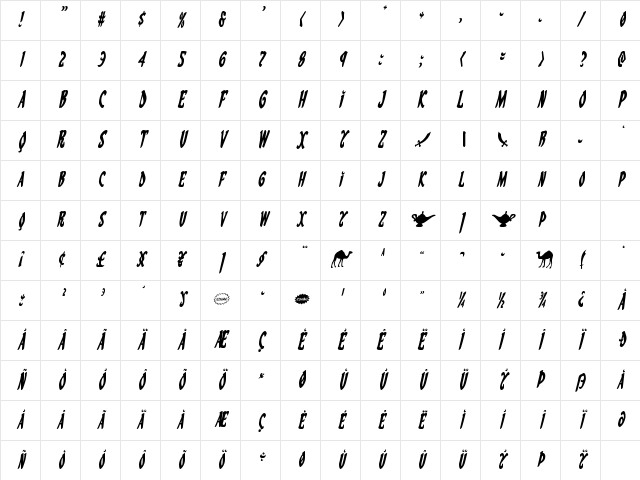
Complete Eskindar Condensed Italic glyph index. Displaying only characters natively supported by Eskindar Condensed Italic font.
Eskindar is a composed and adaptable typeface that performs quietly and consistently across a wide range of design contexts. The slanted form adds forward momentum and visual energy. Its narrow stance lets it pack a punch even in space-constrained designs.